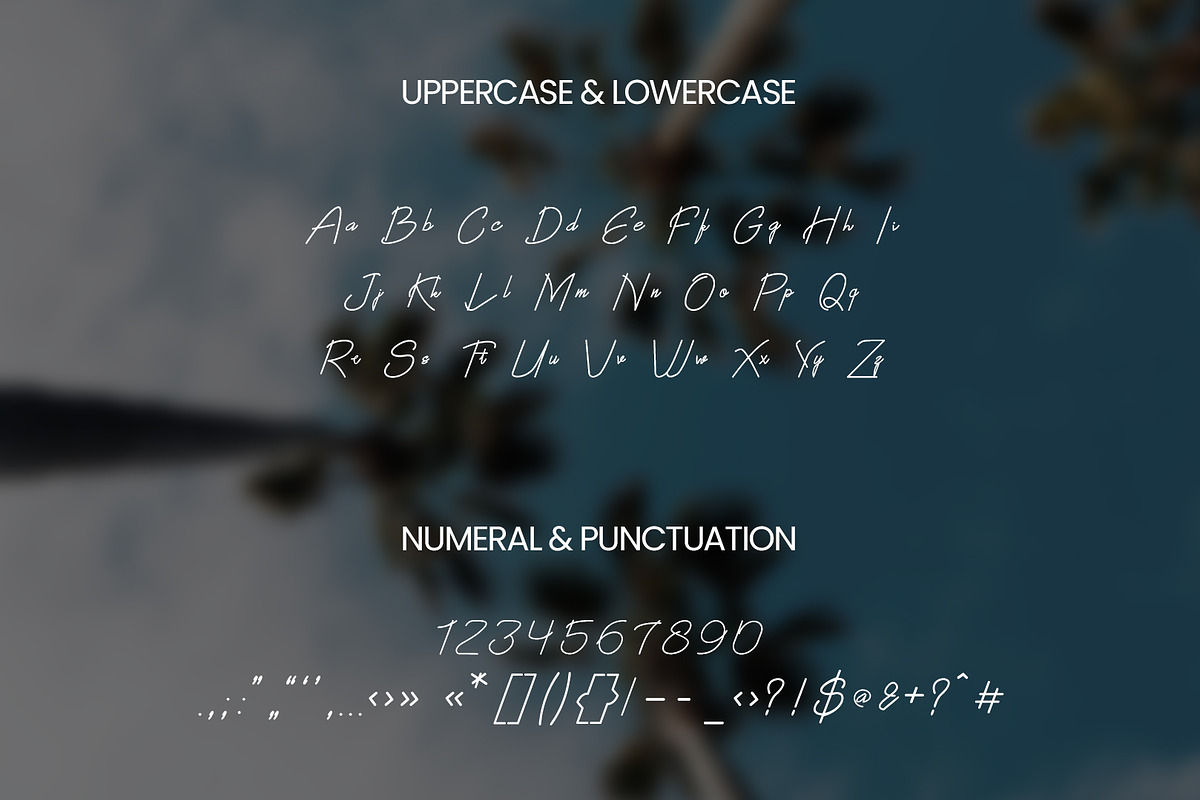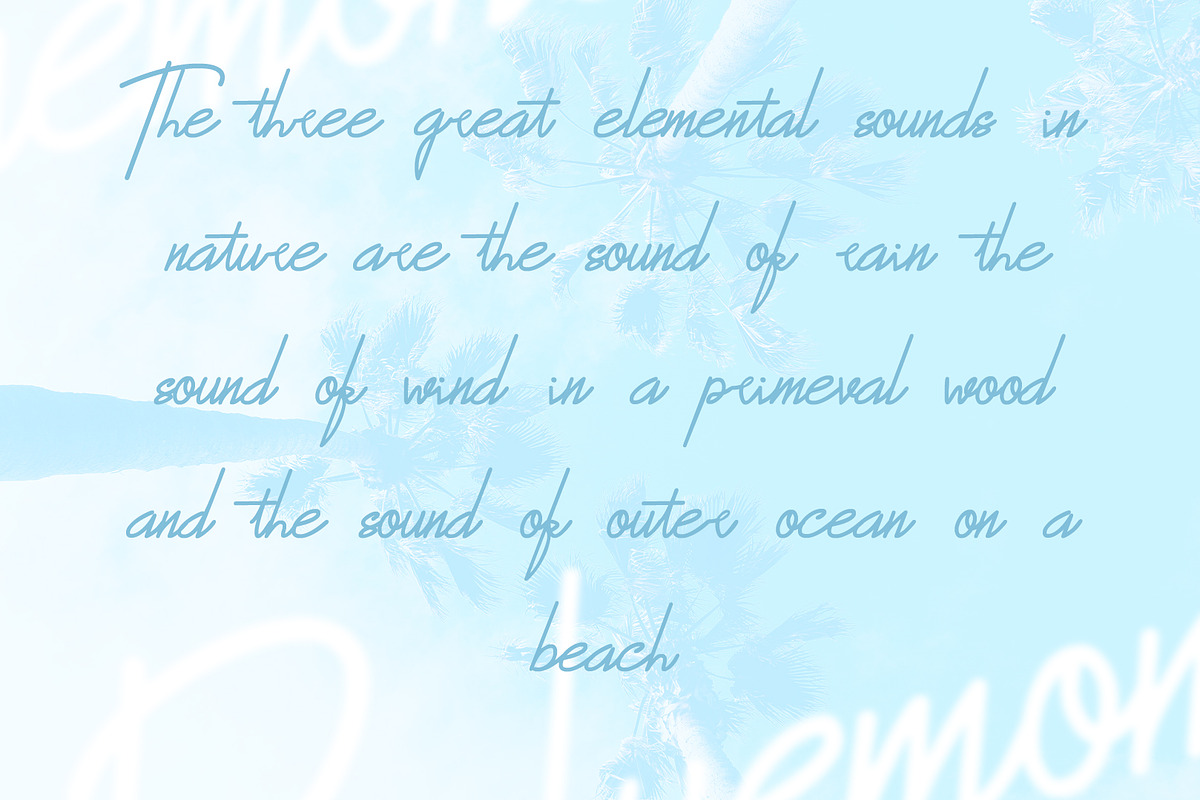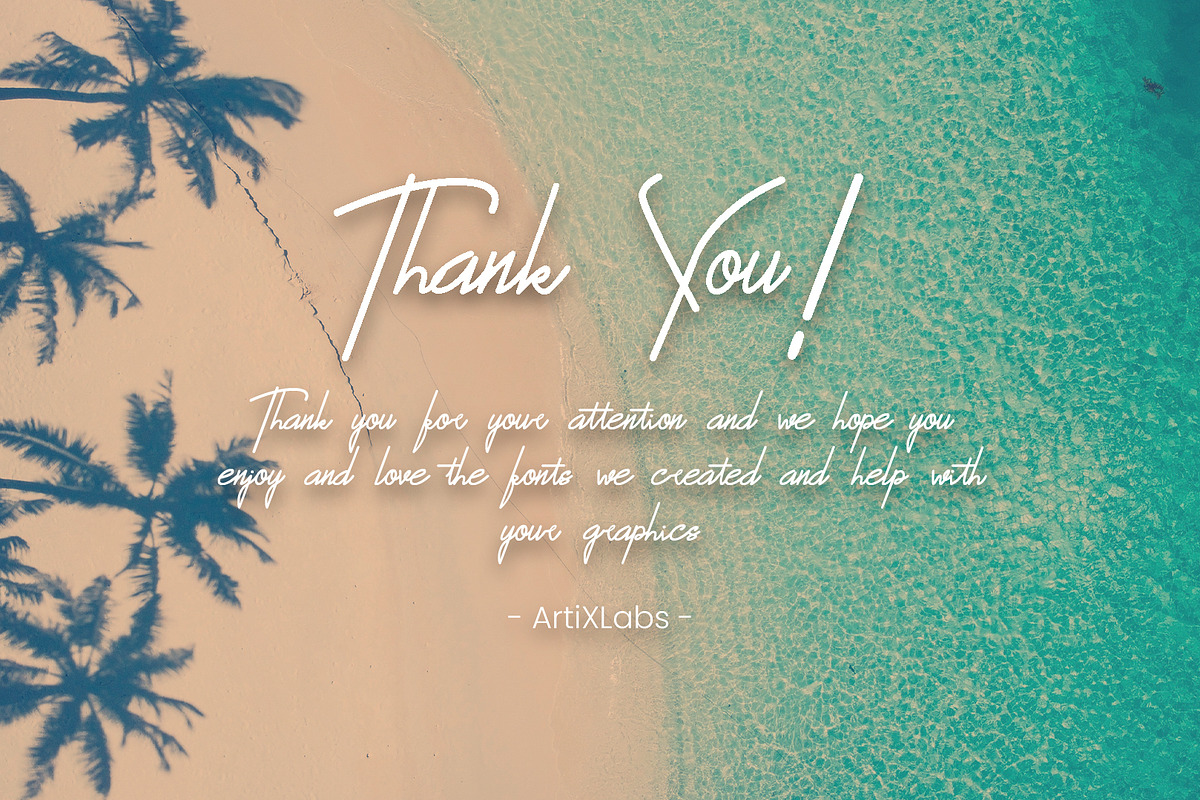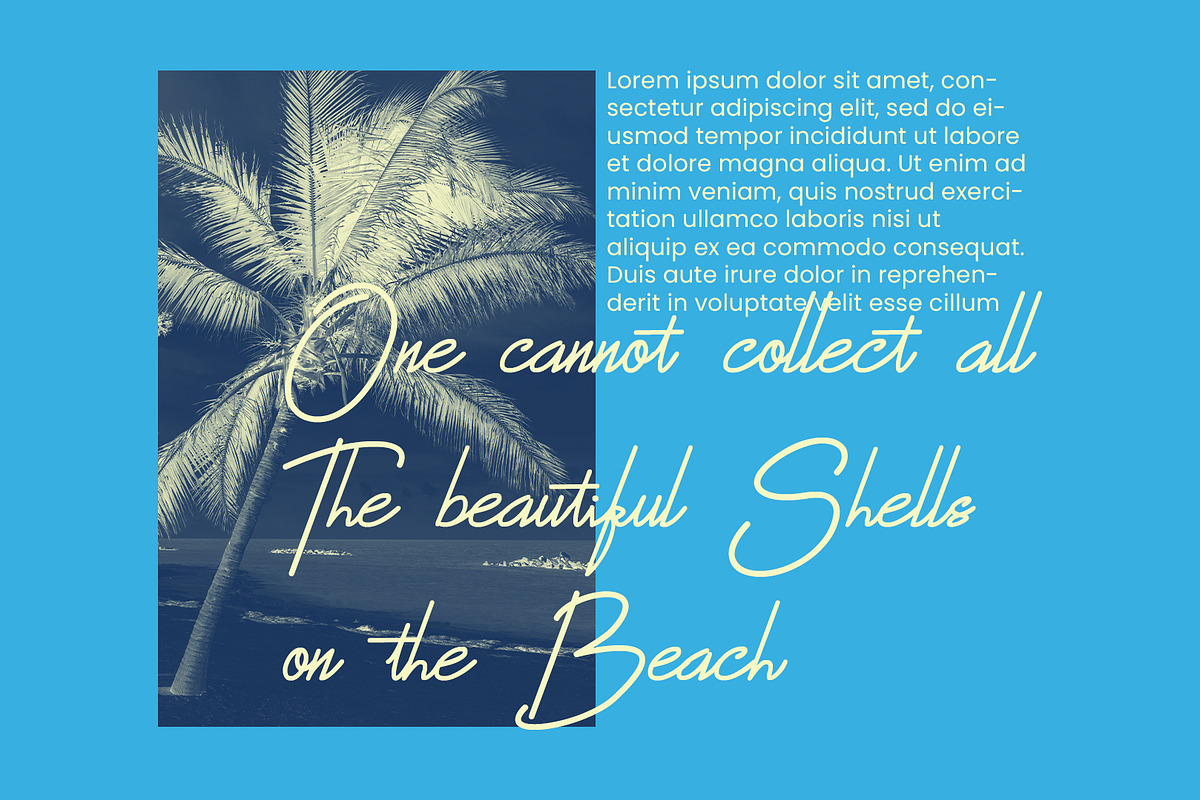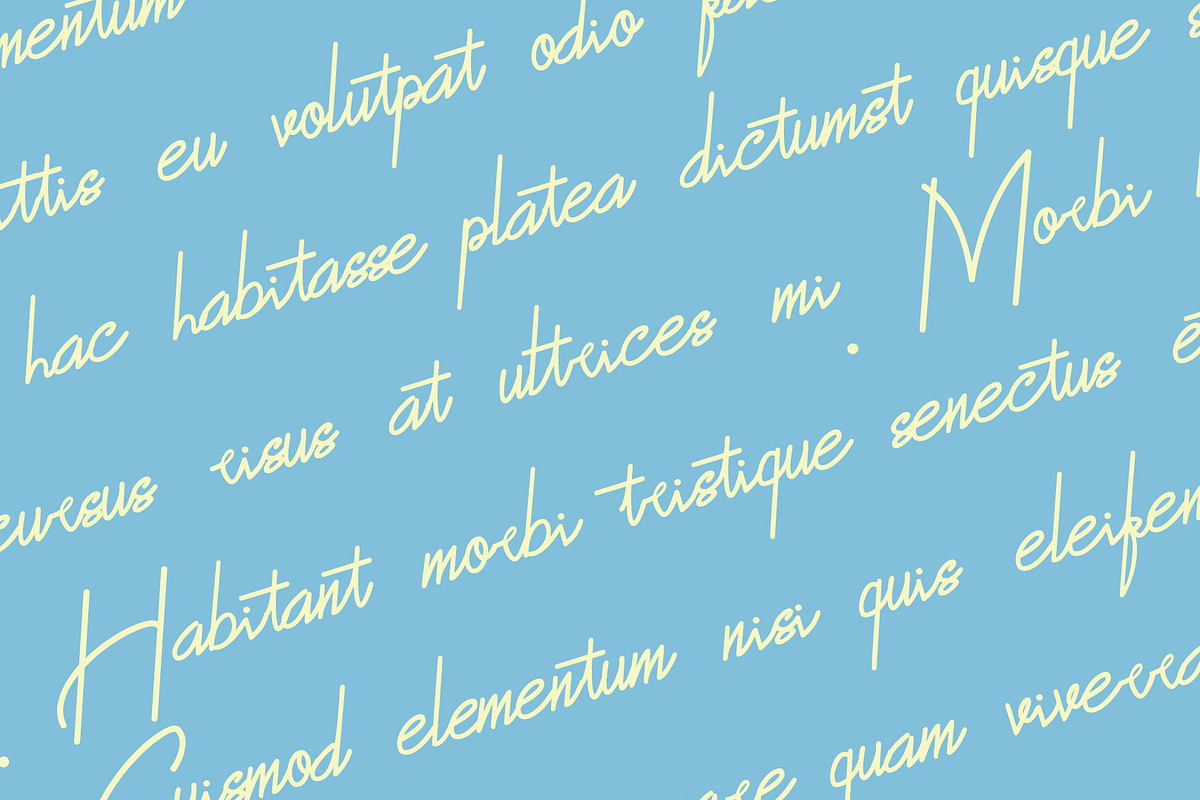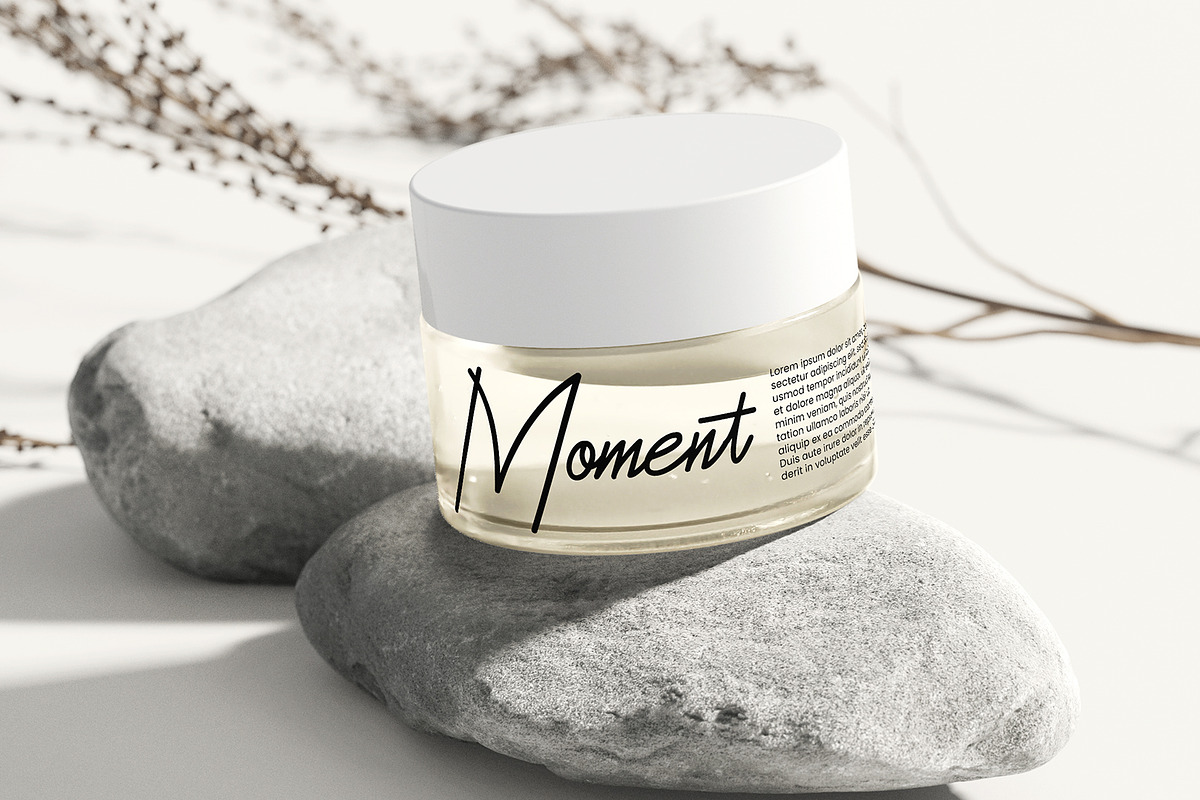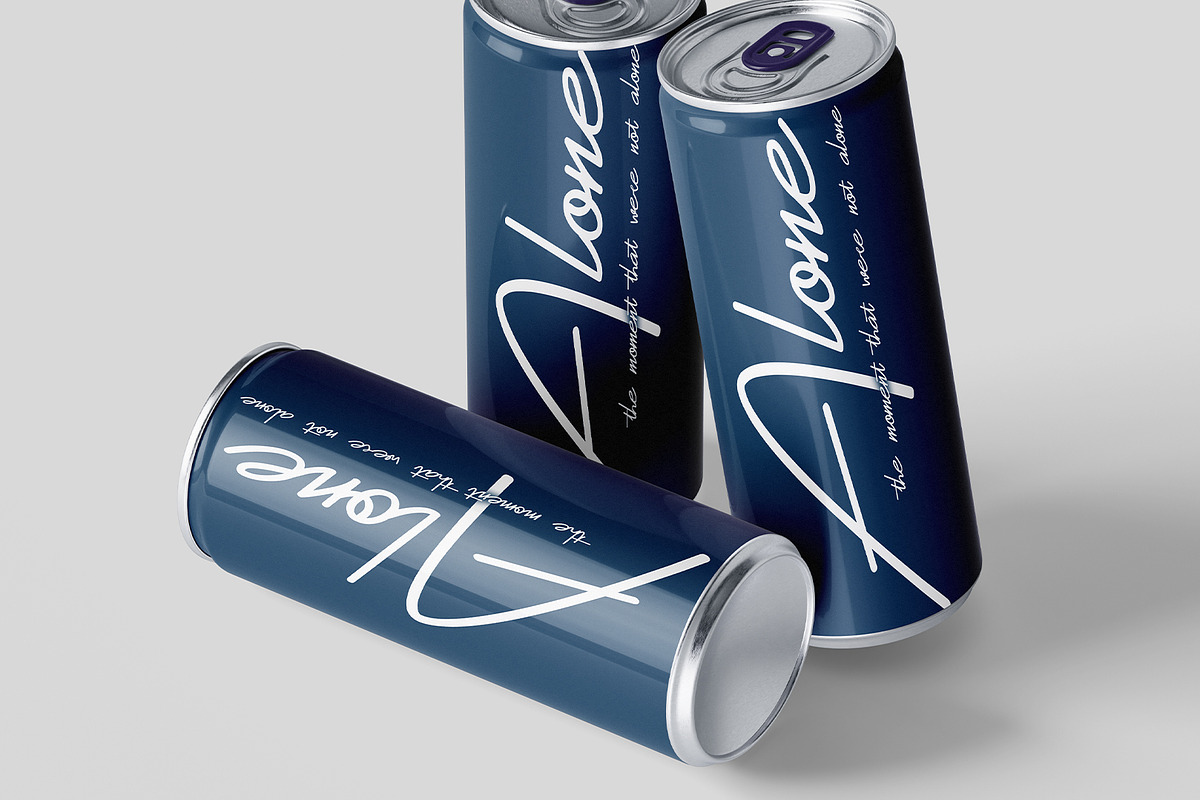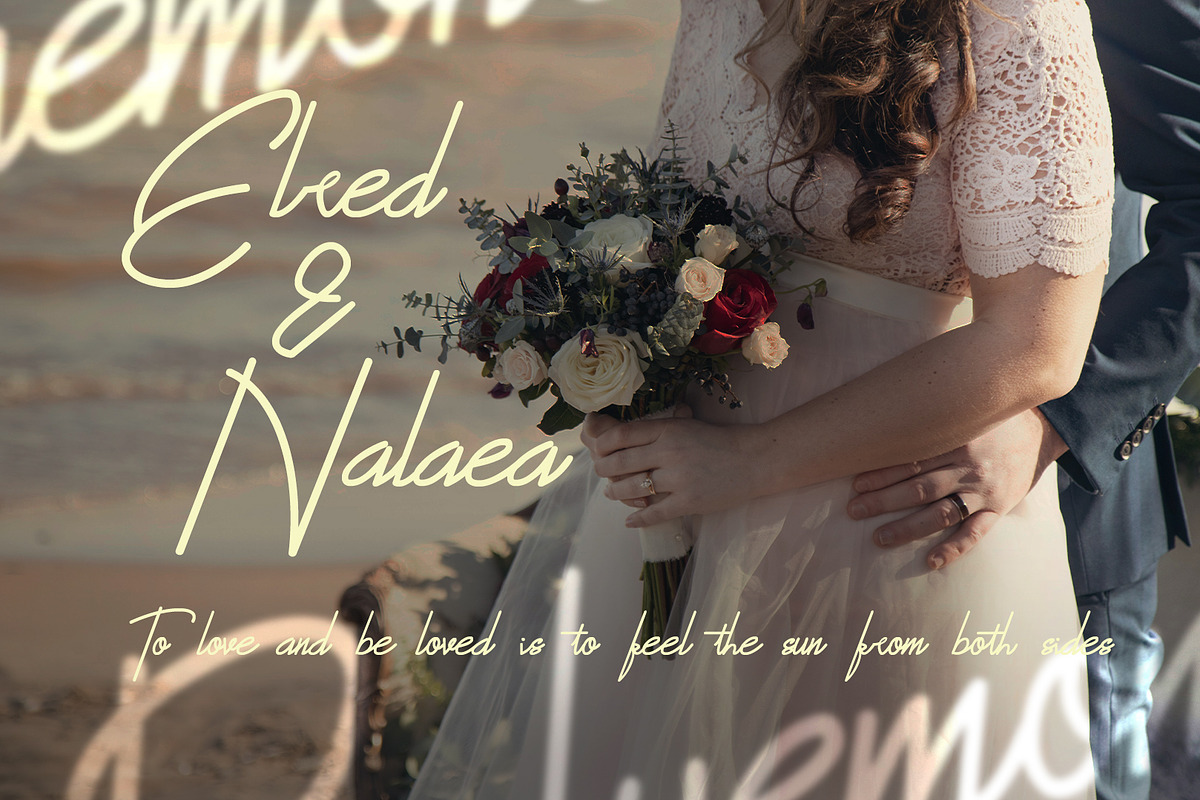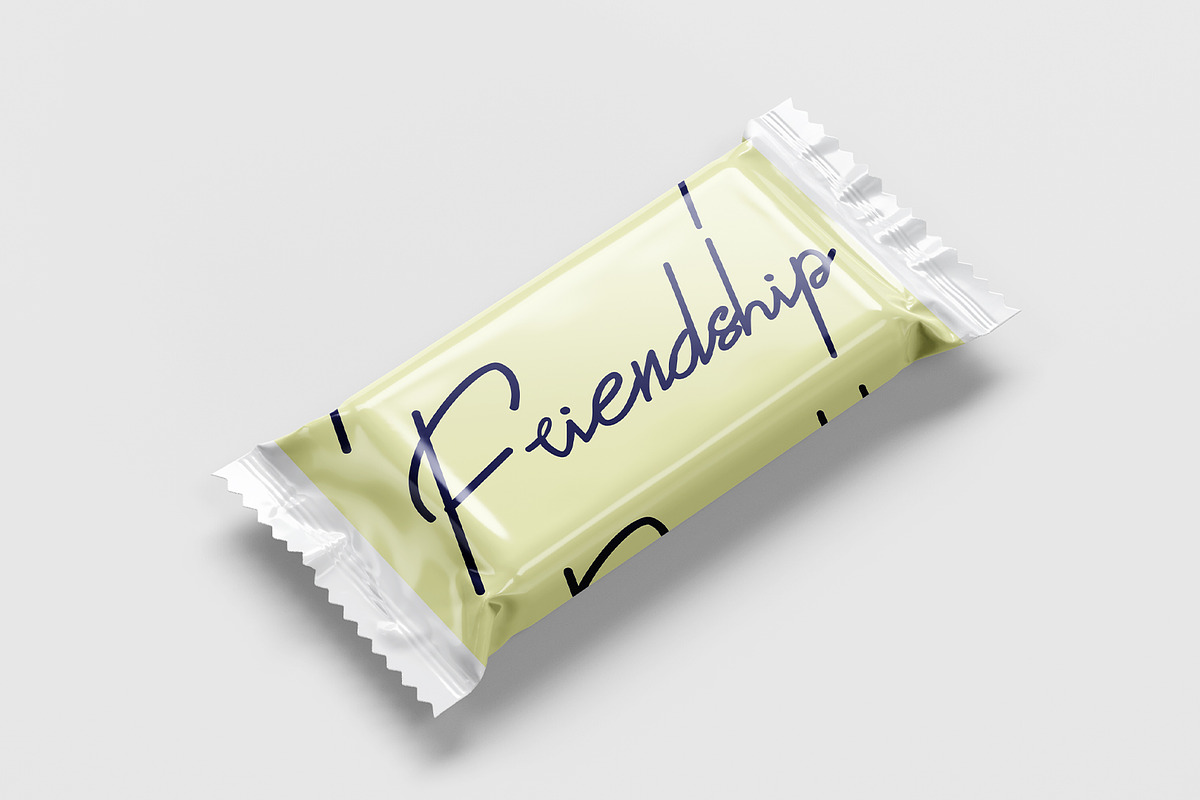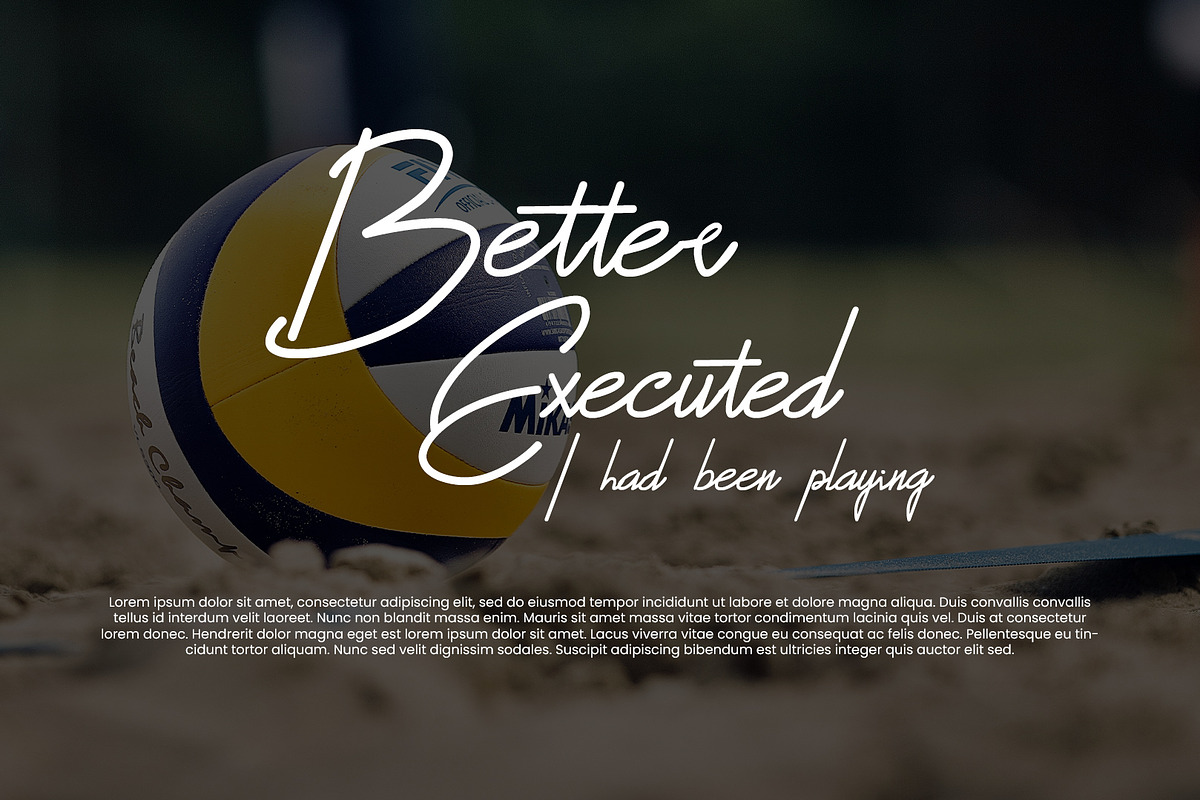
Bluemono - Handwritten Font Type
Introducing Bluemono - Handwritten Font Simple Script Font for Wedding Invitations & Small Businesses
Bluemono is a script font with natural handwritten strokes, perfect for designs that prioritize a personal and minimalist touch. Ideal for digital wedding invitations, logos for local businesses like cafes or boutiques, and social media content for small enterprises. With no complex technical features, this font is designed for everyday projects like homemade product labels, anniversary cards, or simple yet elegant packaging.
- Uppercase & Lowercase letters